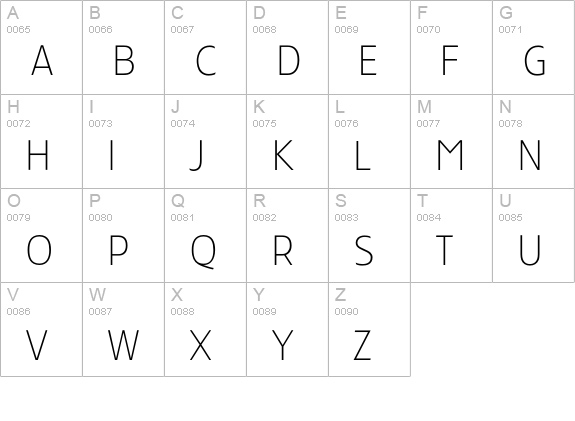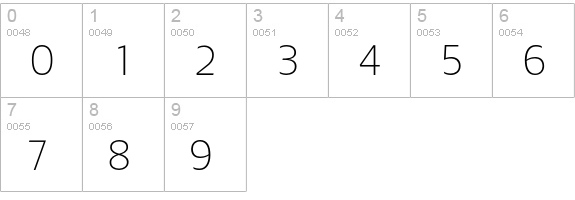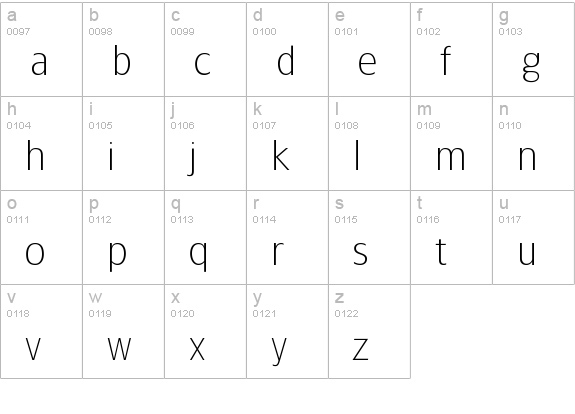
TFForever-ExtraLight is an airy, ultra-refined variant in the TFForever typeface family \xE2\x80\x94 well suited to minimalist headlines and refined display use.
TFForever-ExtraLight font is an exquisite and elegant typeface that effortlessly captures the essence of modernity and sophistication. Its sleek and slender letterforms make it perfect for a wide range of design projects, from branding and logos to editorial layouts and invitations. With its delicate strokes and graceful curves, TFForever-ExtraLight font adds a touch of refinement to any design. Its airy and open structure creates a sense of lightness and freedom, making it an ideal choice for projects that require a contemporary and fresh aesthetic. What makes TFForever-ExtraLight font even more remarkable is that it is available for free download at FontsMarket.com. This means that designers and enthusiasts alike can easily access and utilize this stunning font without any cost. It's a rare opportunity to enhance your creative endeavors with a high-quality typeface, completely free of charge. Whether you're a professional designer looking to elevate your projects or an amateur enthusiast searching for a captivating font to enhance your personal creations, TFForever-ExtraLight font is the perfect choice. Its versatility, elegance, and most importantly, its accessibility, make it an invaluable addition to any designer's toolkit. So why wait? Go ahead and download TFForever-ExtraLight font today, and let your creativity soar to new heights.